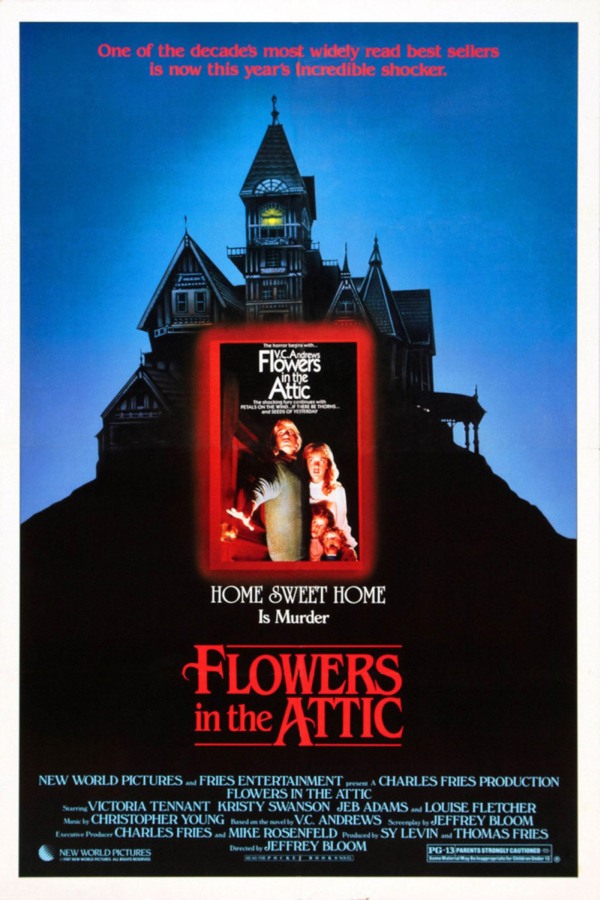
Flowers in the Attic Font
DramaFlowers in the Attic is a 1987 drama film based on the novel by V.C. Andrews about four siblings who are locked in an attic by their mother and grandmother. The film explores the children's struggle to survive and escape their captivity while uncovering dark family secrets.
The typeface ITC Benguiat Medium Condensed is likely used for the movie title on the poster, which was created by Edward Benguiat for ITC in 1977. More information about it can be found here.